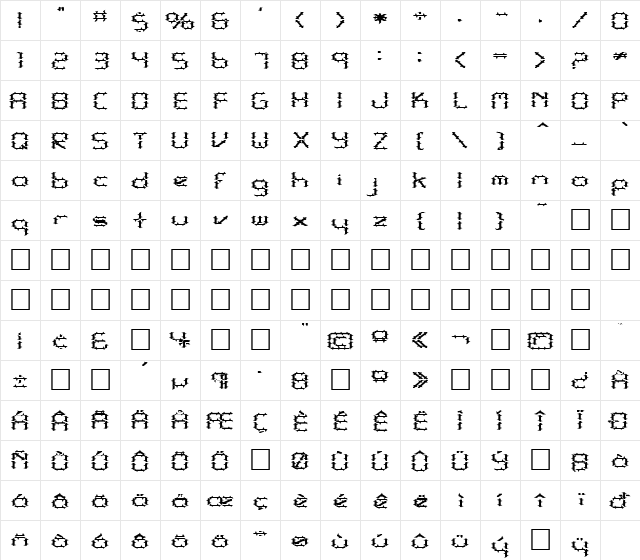
FZ DIGITAL 10 SPIKED EX Normal
Design Context for FZ DIGITAL 10 SPIKED EX Typeface
FZ DIGITAL 10 SPIKED EX channels digital-age aesthetics through its sharp, structured letterforms — ideal for brands that want to signal innovation.
Pro Tip: Try FZ DIGITAL 10 SPIKED EX with generous letter-spacing in UI labels and navigation — the geometric forms benefit from room to breathe.